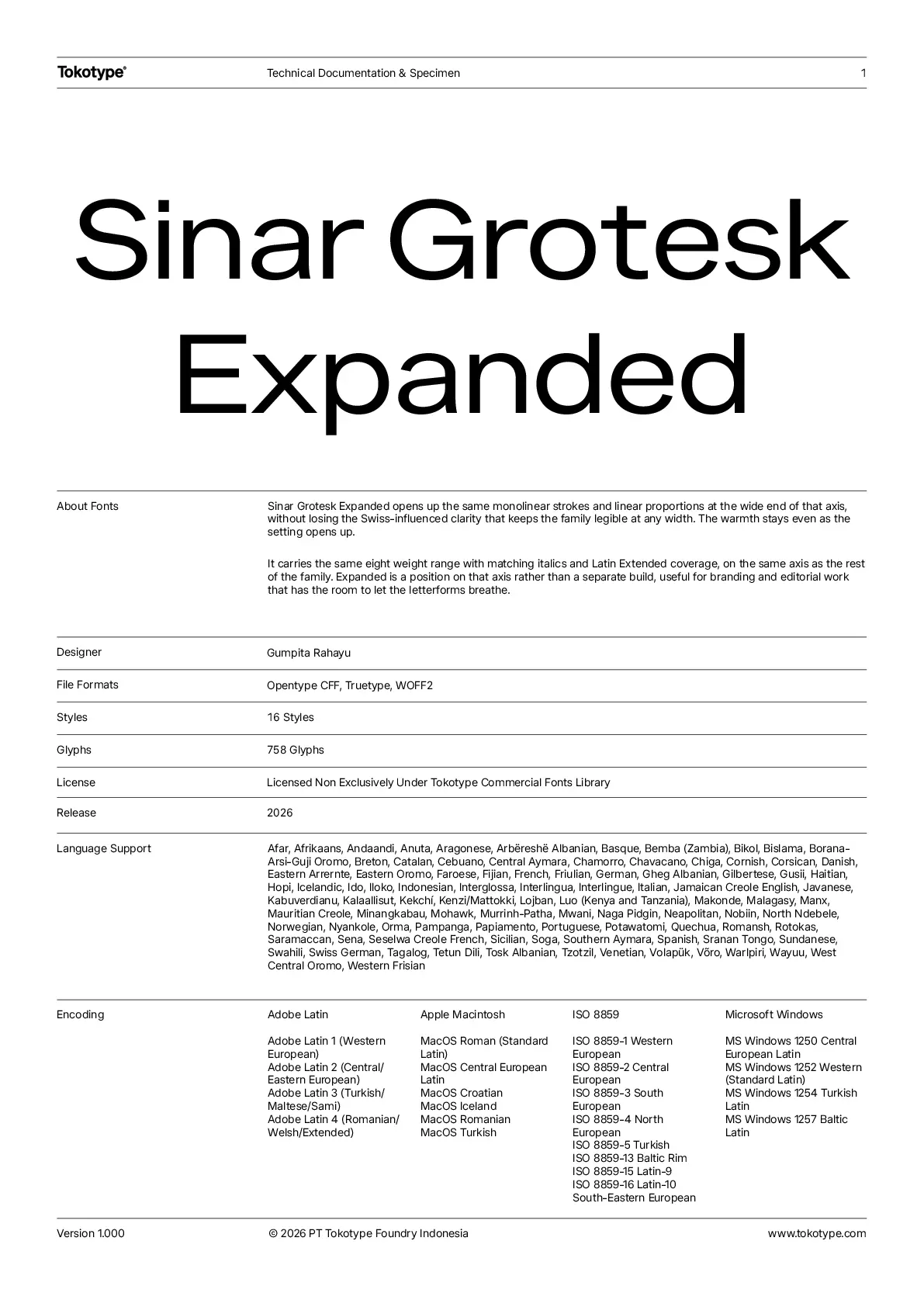
Sinar Grotesk Expanded
About Font
Sinar Grotesk Expanded opens up the same monolinear strokes and linear proportions at the wide end of that axis, without losing the Swiss-influenced clarity that keeps the family legible at any width. The warmth stays even as the setting opens up. It carries the same eight weight range with matching italics and Latin Extended coverage, on the same axis as the rest of the family. Expanded is a position on that axis rather than a separate build, useful for branding and editorial work that has the room to let the letterforms breathe.